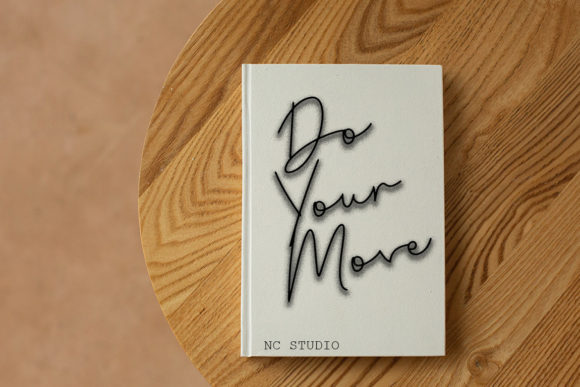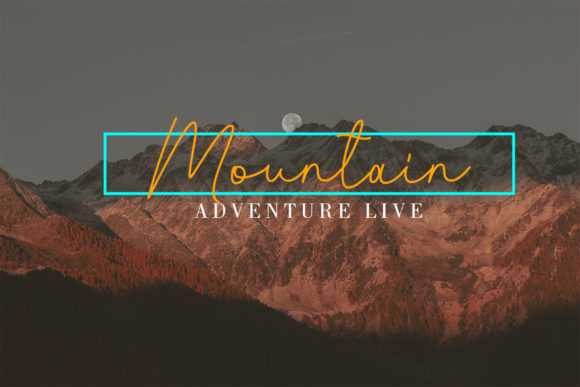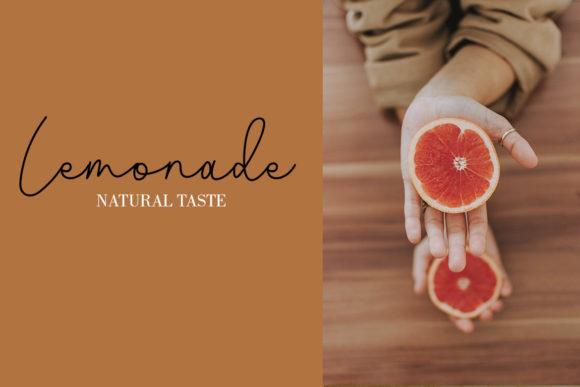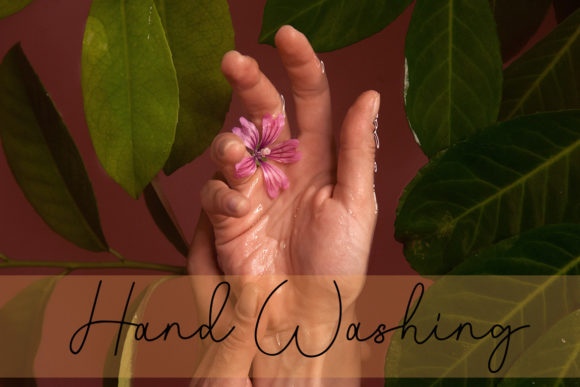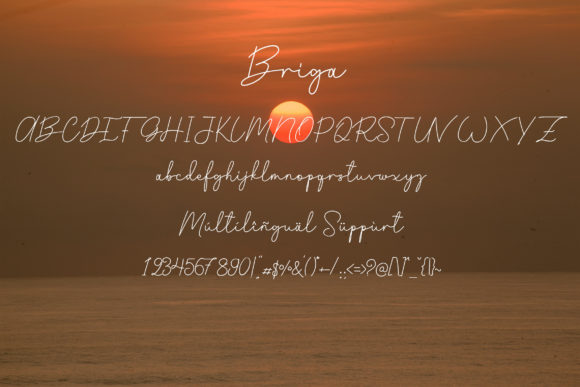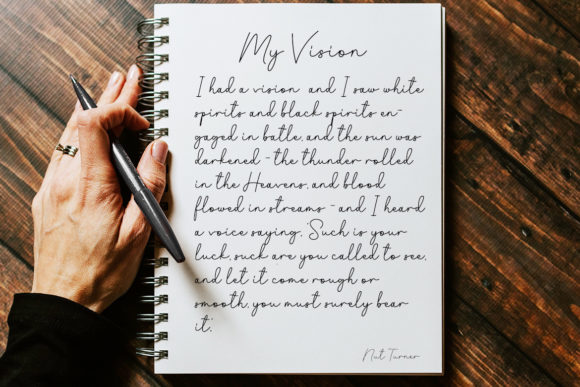
Discover the Elegance of Briga Font: Elevate Your Designs with its Thin Lettered and Graceful Script Style
Are you on the lookout for a font that exudes elegance, sophistication, and romance? Look no further than Briga Font, a stunning script font that is sure to captivate your audience with its thin lettered and graceful style. In this article, we’ll dive into the world of Briga Font, exploring its features, uses, and benefits, and why it’s a must-have for designers and crafters alike.
What is Briga Font?
Briga Font is a beautiful script font characterized by its thin lettering and flowing script style. Its delicate and refined appearance makes it perfect for creating visually stunning designs that demand attention. Whether you’re working on a wedding invitation, social media post, or stationery art, Briga Font is sure to add a touch of elegance and sophistication to your project.
Features of Briga Font
So, what makes Briga Font so special? Here are some of its key features:
- Thin Lettered: Briga Font boasts a slender and refined lettering style that is perfect for creating elegant and sophisticated designs.
- Graceful Script Style: The font’s script style is fluid and dynamic, with flowing connections between letters that add to its beauty and charm.
- Highly Versatile: Briga Font can be used for a wide range of design projects, from wedding invitations and stationery art to social media posts and more.
- Easily Readable: Despite its thin lettering, Briga Font is highly readable, making it perfect for both digital and print designs.
Uses of Briga Font
Briga Font is an incredibly versatile font that can be used for a wide range of design projects. Here are some ideas to get you started:
- Wedding Invitations: Create stunning wedding invitations that set the tone for a beautiful and elegant celebration.
- Stationery Art: Add a touch of sophistication to your stationery art, including greeting cards, thank you cards, and more.
- Social Media Posts: Elevate your social media posts with Briga Font’s elegant and refined style, perfect for quotes, announcements, and more.
- Branding and Packaging: Use Briga Font to create beautiful and eye-catching branding and packaging designs that stand out from the crowd.
Benefits of Using Briga Font
So, why should you choose Briga Font for your design projects? Here are some benefits to consider:
- Elegance and Sophistication: Briga Font adds a touch of elegance and sophistication to any design project, making it perfect for high-end brands and luxury products.
- Flexibility: Briga Font can be used for a wide range of design projects, from digital to print, and can be easily paired with other fonts to create a unique look.
- Readability: Briga Font is highly readable, even at small sizes, making it perfect for designs that require a lot of text.
- Uniqueness: Briga Font’s unique and refined style sets it apart from other script fonts, making it a great choice for designers looking to create something truly special.
Tips for Using Briga Font
Here are some tips for getting the most out of Briga Font:
- Pair with Bold Fonts: Pair Briga Font with bold fonts to create a striking contrast that adds visual interest to your design.
- Experiment with Colors: Briga Font looks beautiful in a range of colors, from soft pastels to rich jewel tones. Experiment with different colors to find the perfect look for your design.
- Use for Headings and Titles: Briga Font is perfect for headings and titles, where its elegant and refined style can really shine.
In conclusion, Briga Font is a stunning script font that is sure to elevate your design projects with its thin lettered and graceful style. With its versatility, readability, and elegance, Briga Font is a must-have for designers and crafters alike. So why wait? Fall for the ravishing style of Briga Font and start creating gorgeous wedding invitations, beautiful stationery art, eye-catching social media posts, and more!